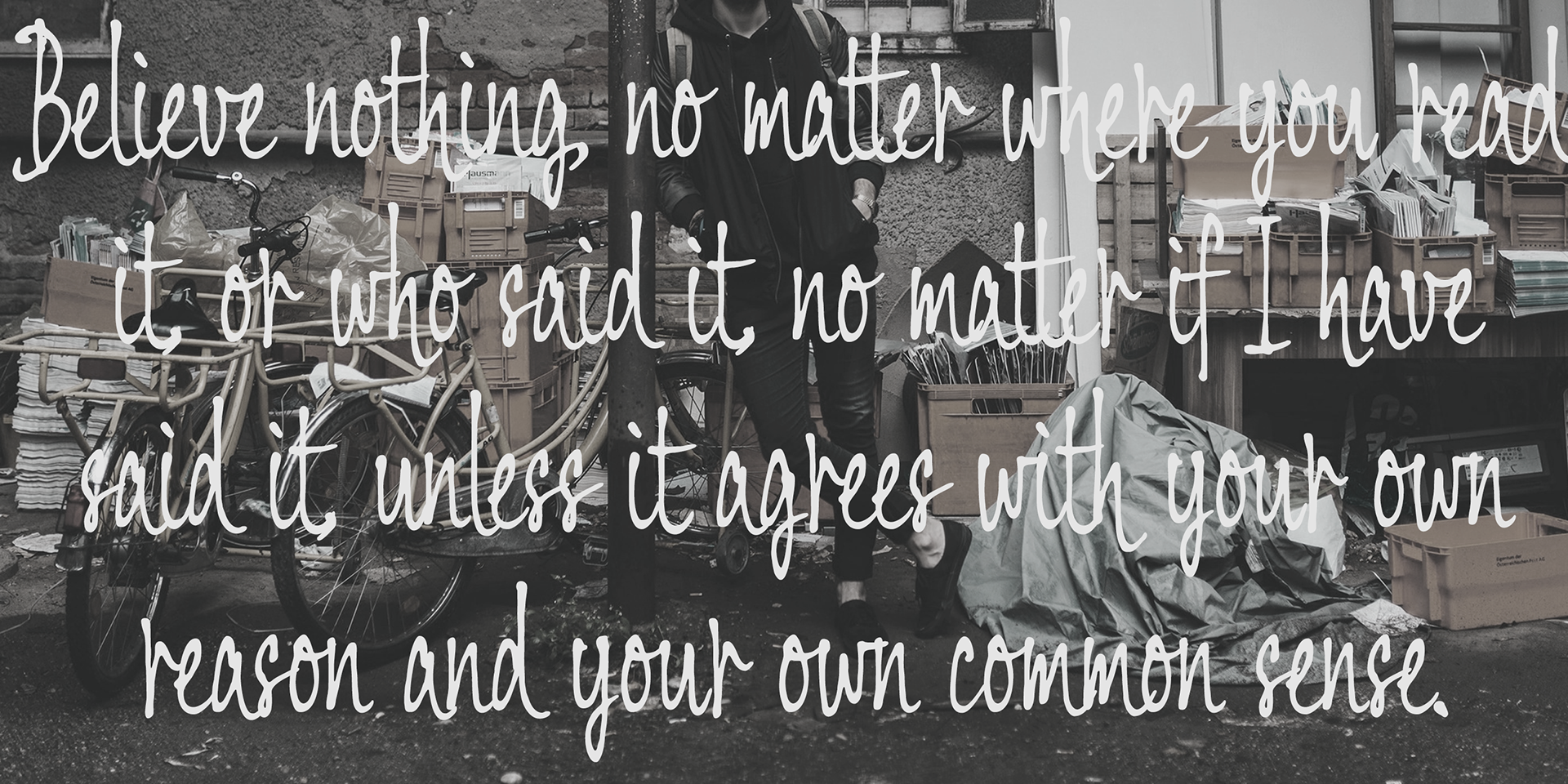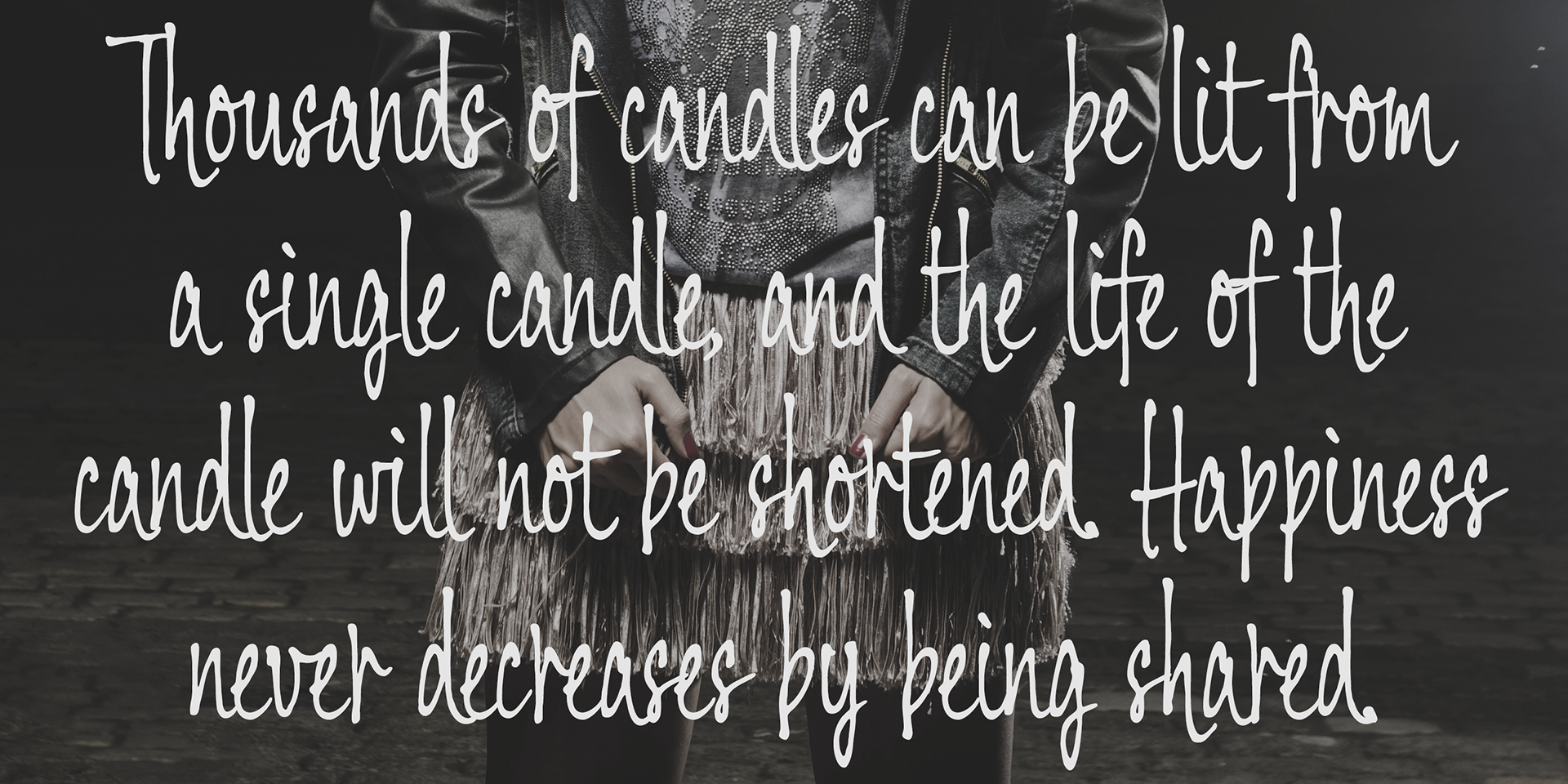
Balaghat
Balaghat is a decorative yet natural hand-lettered script.
Its most distinctive feature is its flowing cursive form, reminiscent of smooth brush strokes.
Perfect for high-end logotypes and magazine headlines, it also shines in greeting cards, invitations, posters, book covers, advertisements, and a wide range of web and screen applications.